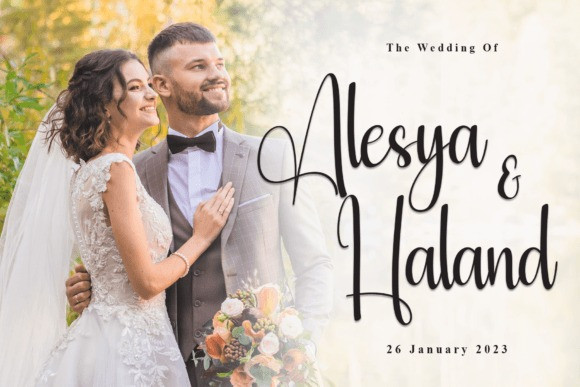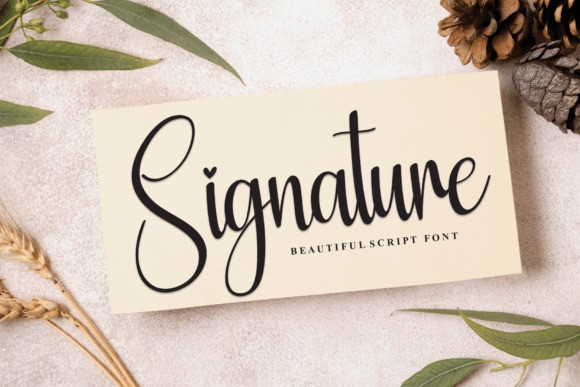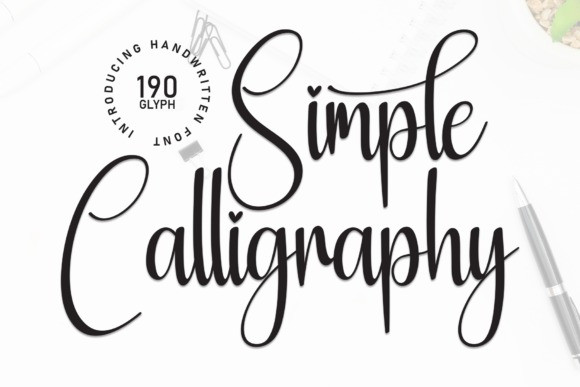
Simple Calligraphy Handwriting Font
Simple Calligraphy Handwriting Font is a charming handwritten font imbued with a sense of freshness and casual elegance. Its fluid strokes and organic lines evoke a laid-back vibe, making it perfect for various design projects. Whether used for branding, invitations, or social media graphics, Simple Calligraphy adds a touch of warmth and personality.